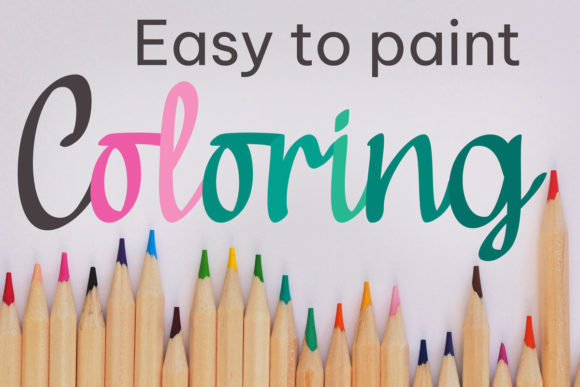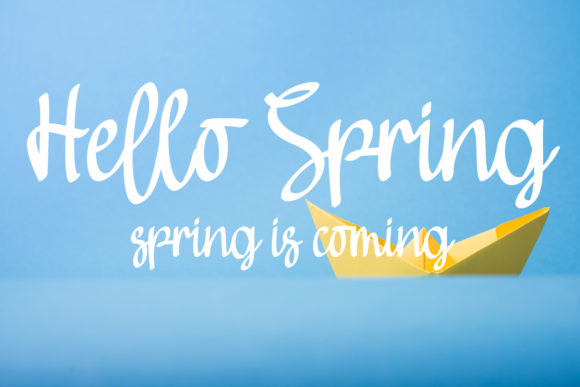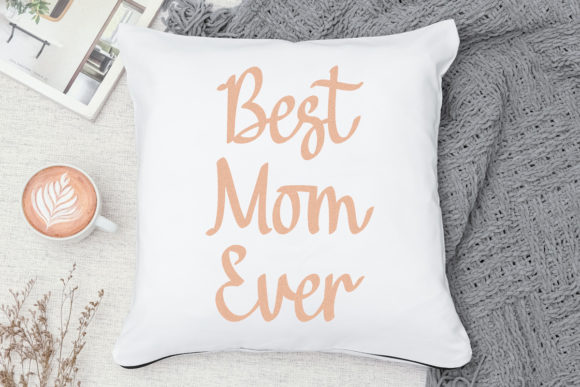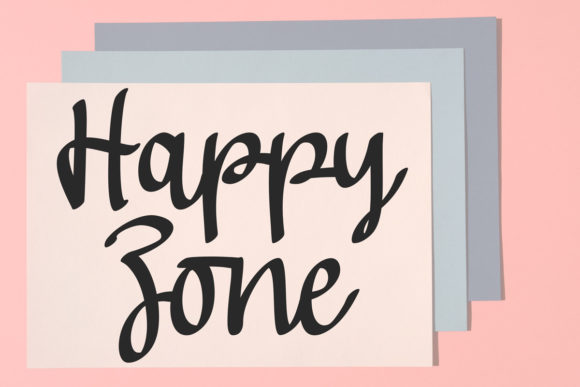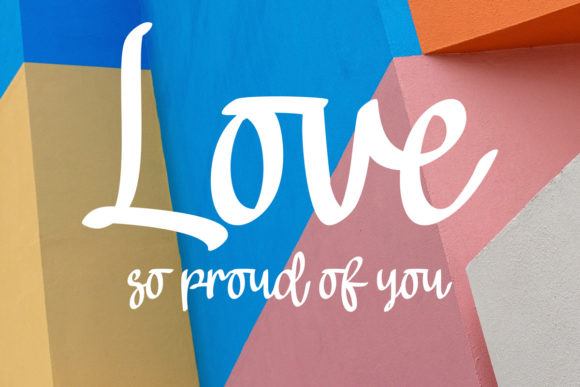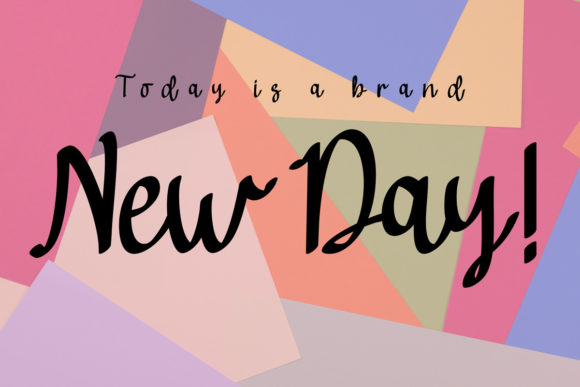
Introduction to Momy Noela Font
Momy Noela is a lovely and timeless handwritten font.
Every letter has a unique and beautiful touch, which will make your design come alive Its stylish alternates and ligatures make this font the perfect match for any project.